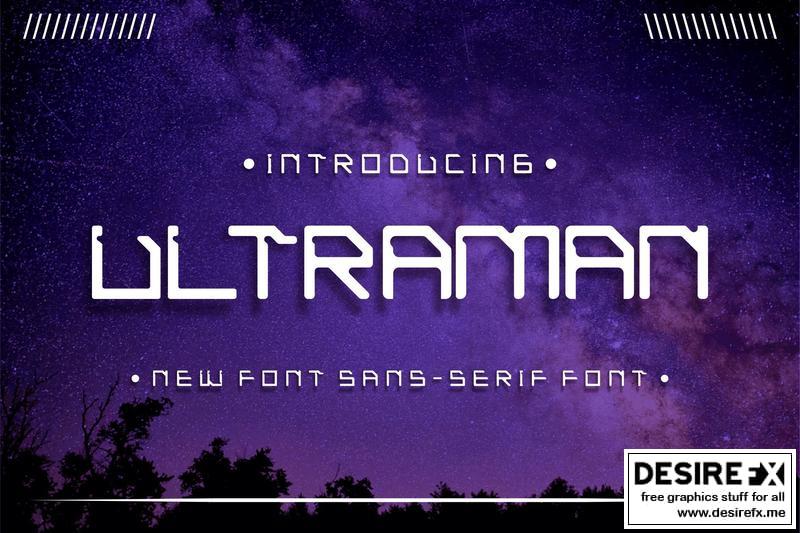
Ultraman modern sans serif font NZD9TSA
Ultraman modern sans serif font – Handwriting Script Font is a Cute Handwriting typeface, perfectly suitable for creating quotes, Wedding Invitations, lifestyle designs such as logos, title, magazine, and more.